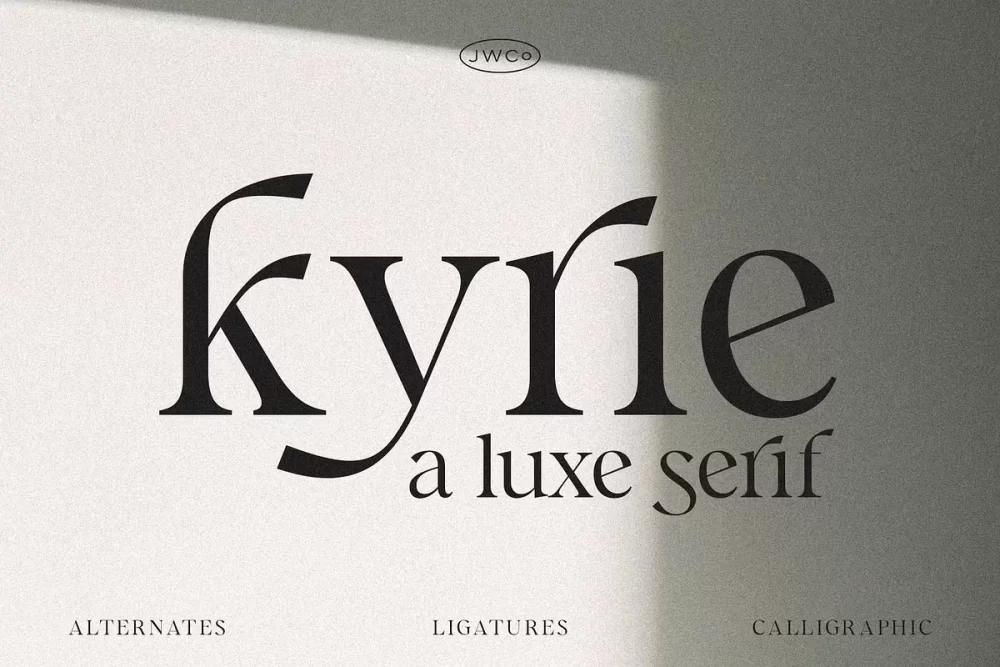
Kyrie is a luxe, calligraphic upper and lowercase display serif that works beautifully for branding projects and quotes. Best used as a display for headings and logos, Kyrie’s clean lines, smooth curves, and true-to-form calligraphic style give any project a touch of luxury and class.